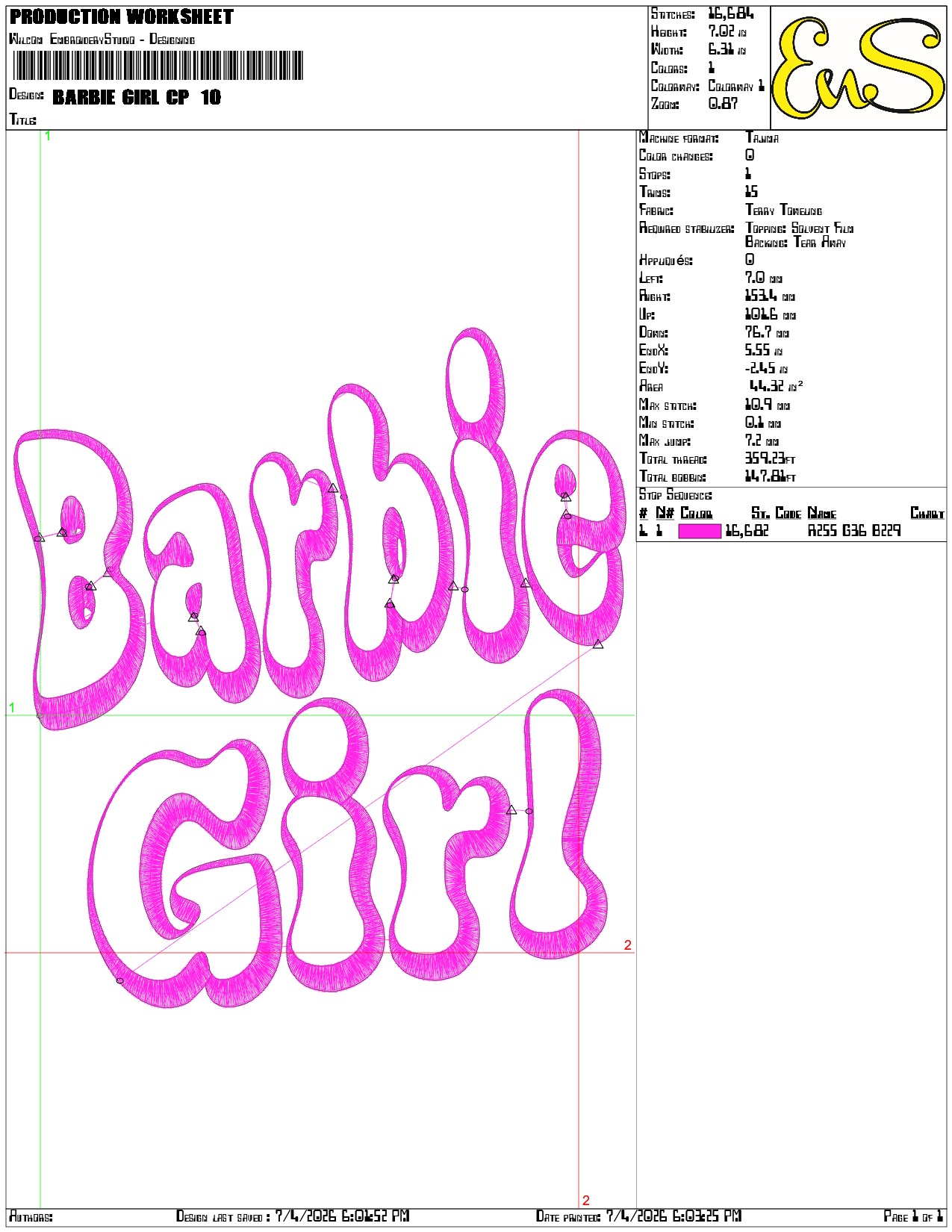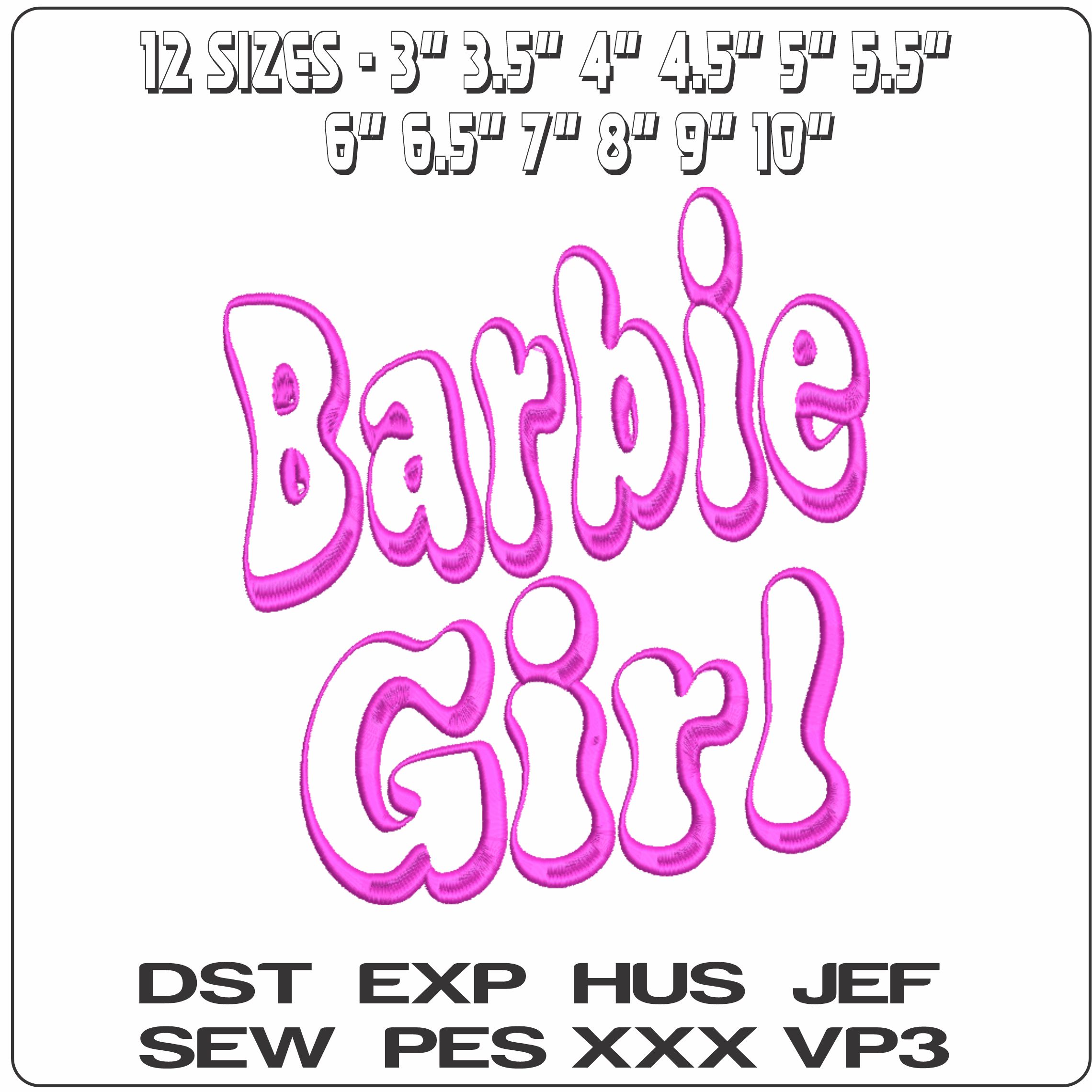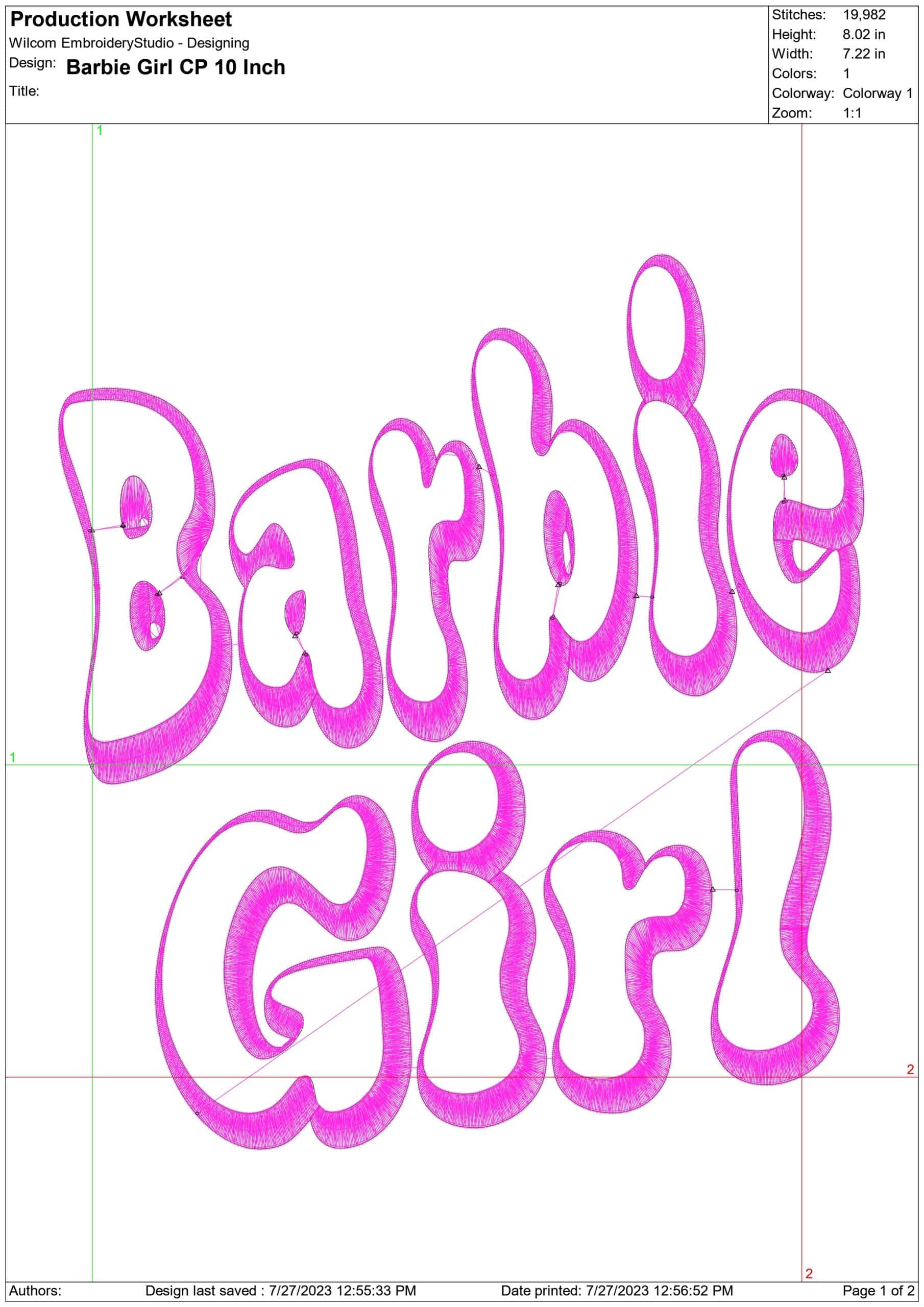
Playful pink “Barbie Girl” lettering with a candy-pop outline look, ideal for adding bold personality to tees, totes and kidswear.
Bring candy-pop charm to custom clothing with this Barbie Girl text embroidery design, stitched as stacked words in rounded bubble lettering. The bright pink style and outlined look give it that instantly recognisable playful feel, while the open, lightly stitched finish keeps the text looking airy rather than heavy. It suits children’s pieces, Barbie-inspired makes, and fun personalised items for anyone who likes bold, girly typography.
Because it is a lighter, more open design with a single-thread build, it sits especially well on T-shirts, sweatshirts, tote bags and pyjama tops where you want colour and impact without a dense block of stitching. The simple letter-focused layout reads clearly on plain cotton, jersey and sweatshirt fleece, and the range of sizes makes it easy to use for anything from a small chest placement to a larger framed statement. It works best where the wording itself is the star, whether you are dressing up everyday kidswear or adding a playful label-style touch to a casual accessory.